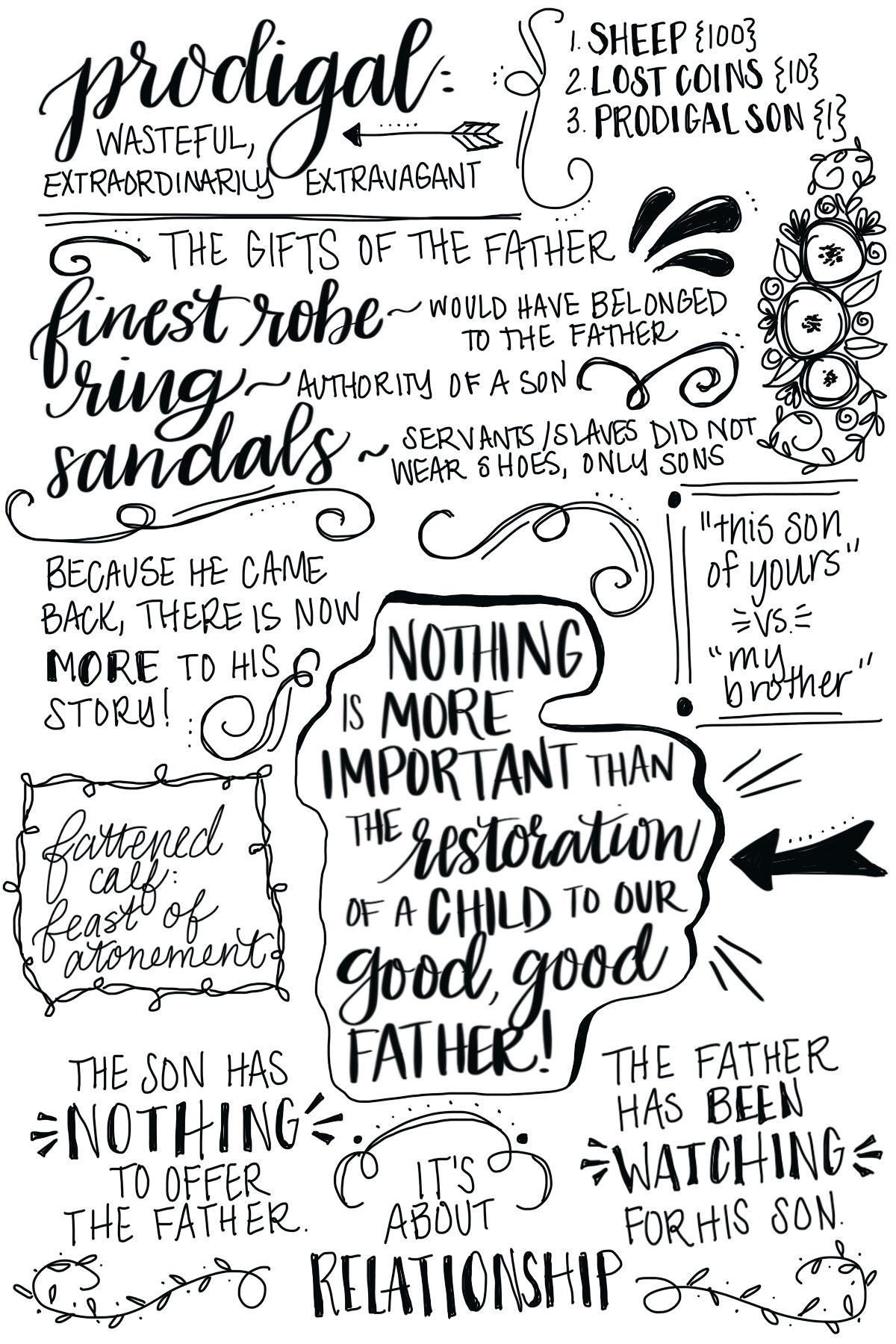
Famous Note Taking Fonts 2022
Famous Note Taking Fonts 2022. It comes packed with all kinds of features that make it. Looking for note taking fonts?
Gudea font is a fun, clear and functional typeface family, with an easy and short structure that brings a nice feeling when used at any size. Best fonts for notes in microsoft word arial. Click to find the best 2 free fonts in the note taking style.
Arial Is One Of The Best Fonts In Microsoft Word, And It Used To Be The Most Popular Default Font.
Best fonts for notes in microsoft word arial. There are a few different font apps that you. Click to find the best 2 free fonts in the note taking style.
‘Oh, My Notes’ Is A Casual Handwritten Font With Natural Stroke.
Gudea font is a fun, clear and functional typeface family, with an easy and short structure that brings a nice feeling when used at any size. Google keep what we like organize with customizable labels. By default, if users do not change their browser font settings, the font size should be 16px = 1em.